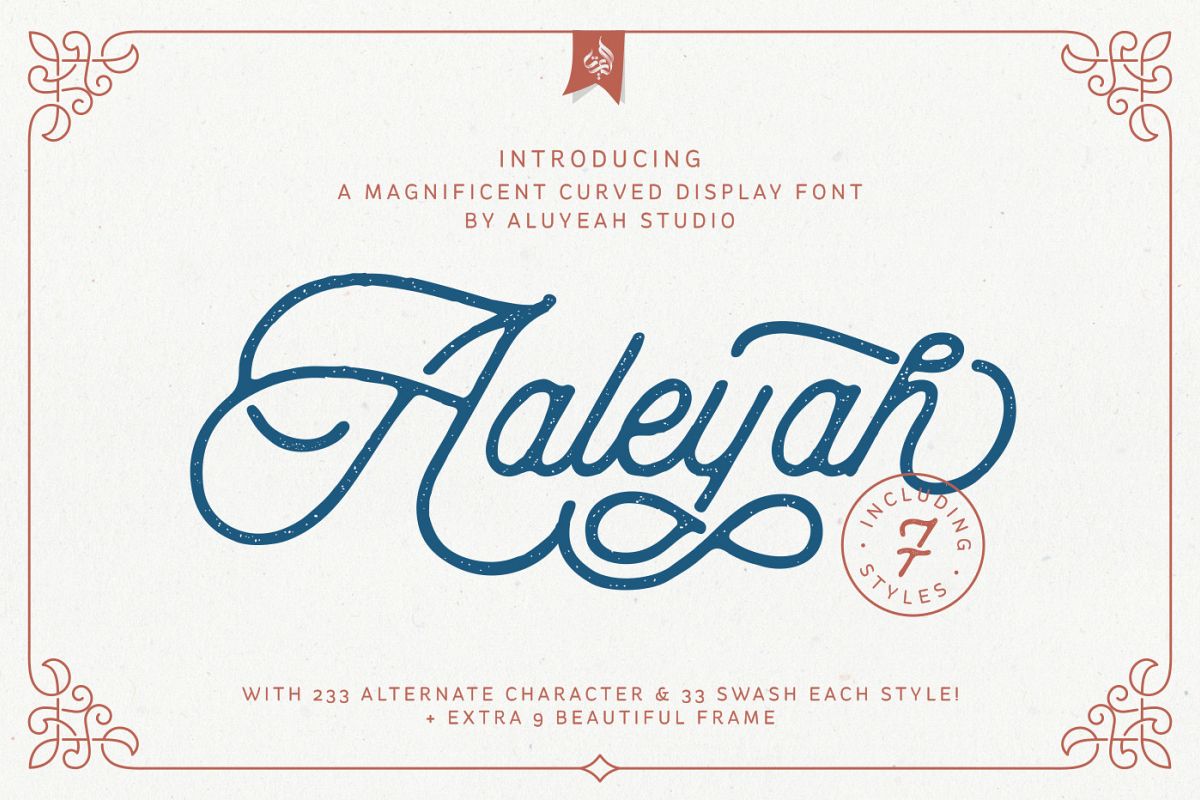
Aaleyah & Extras
Introducing Aaleyah. A magnificent curved display font. Use it to add vintage and mystique flavor to any design! It’s ready and Perfectly fit for your logo designs, headline, music projects & social media posts, event poster, brand imagery, product packaging, quotes, merchandise, etc.